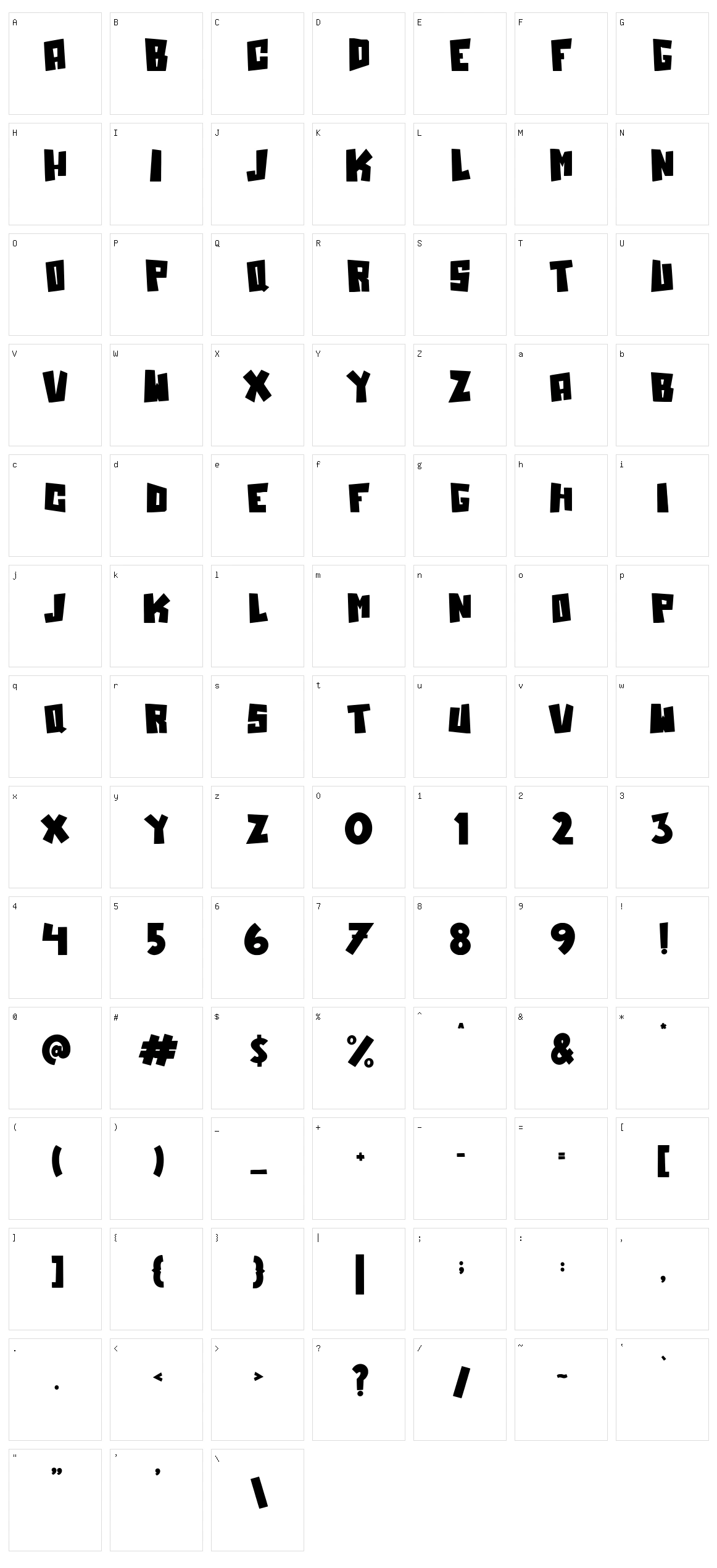
The free font Santa Day is carefully designed by Hatf Type, showcasing a thoughtful balance of creativity and usability and falls under the Cartoon font style. When you download the ZIP file, it contains only 37.3 KB of font files, making it lightweight and quick to download. Please review the license details below to understand permitted usage and distribution rights. If license information is not available, we recommend using this font for personal projects only or contacting the author directly for commercial usage permissions.